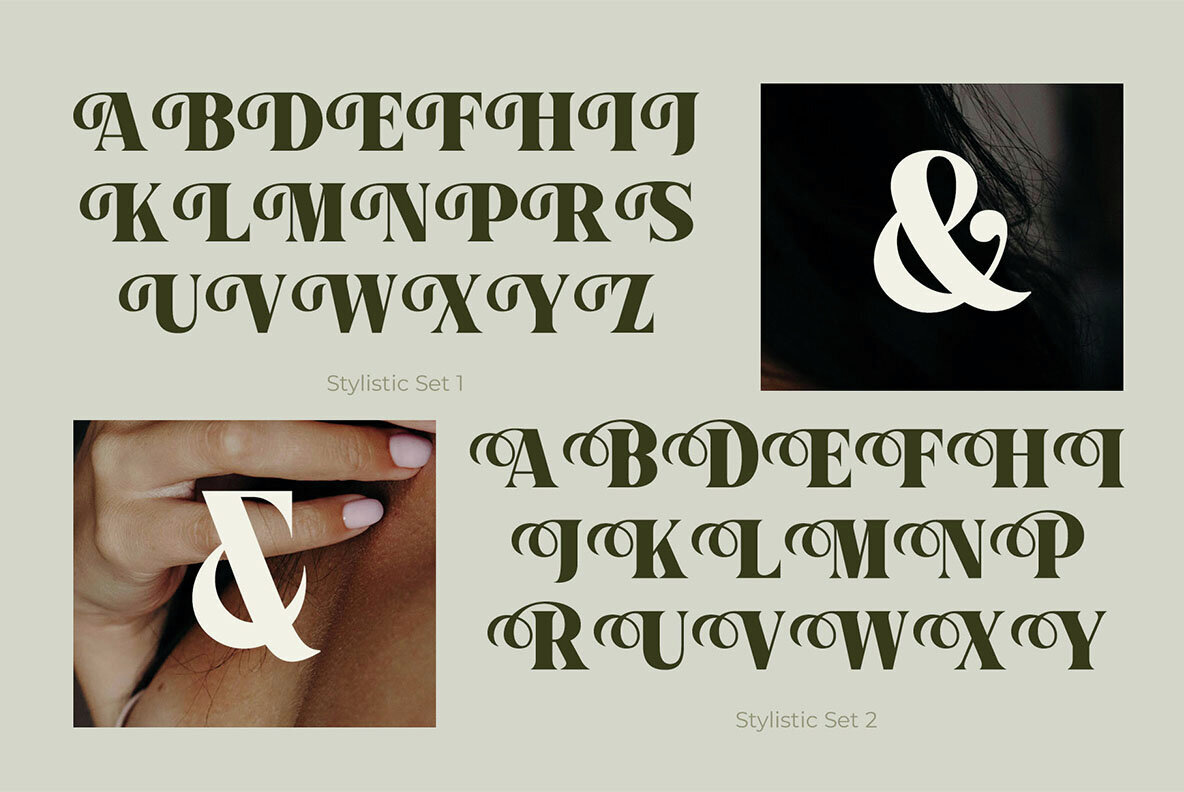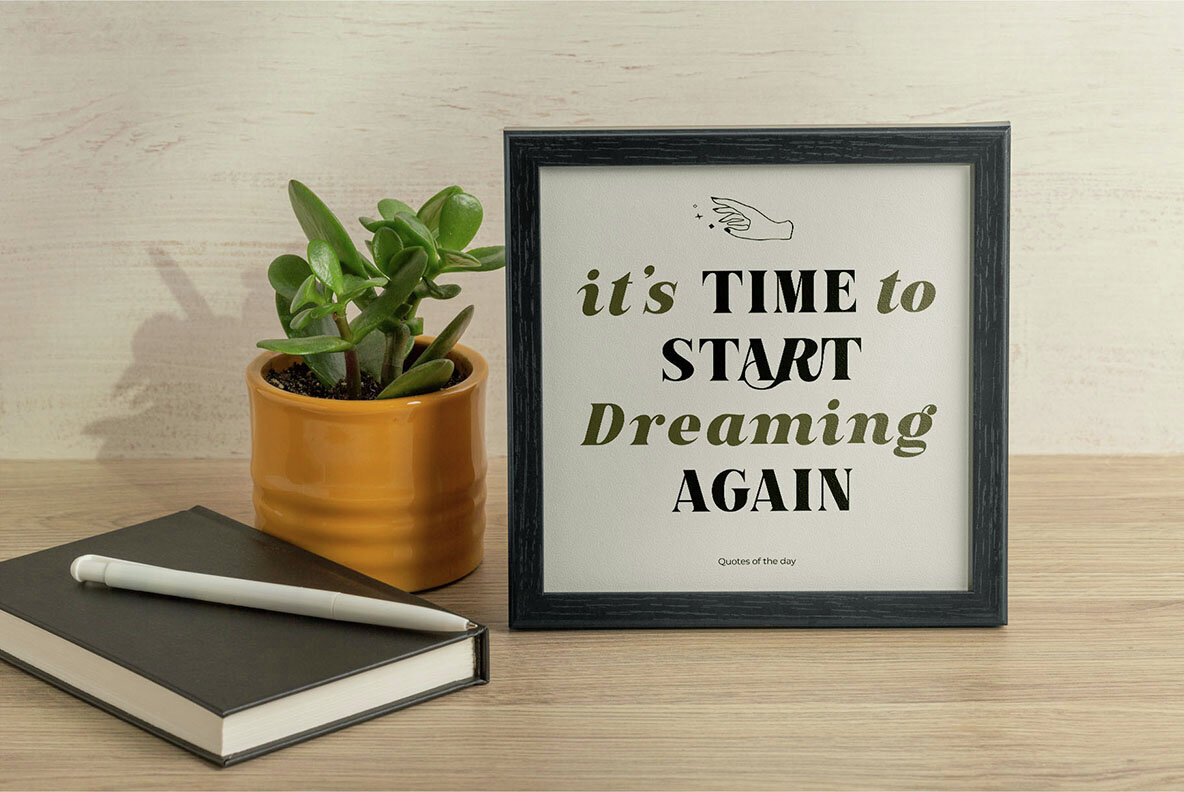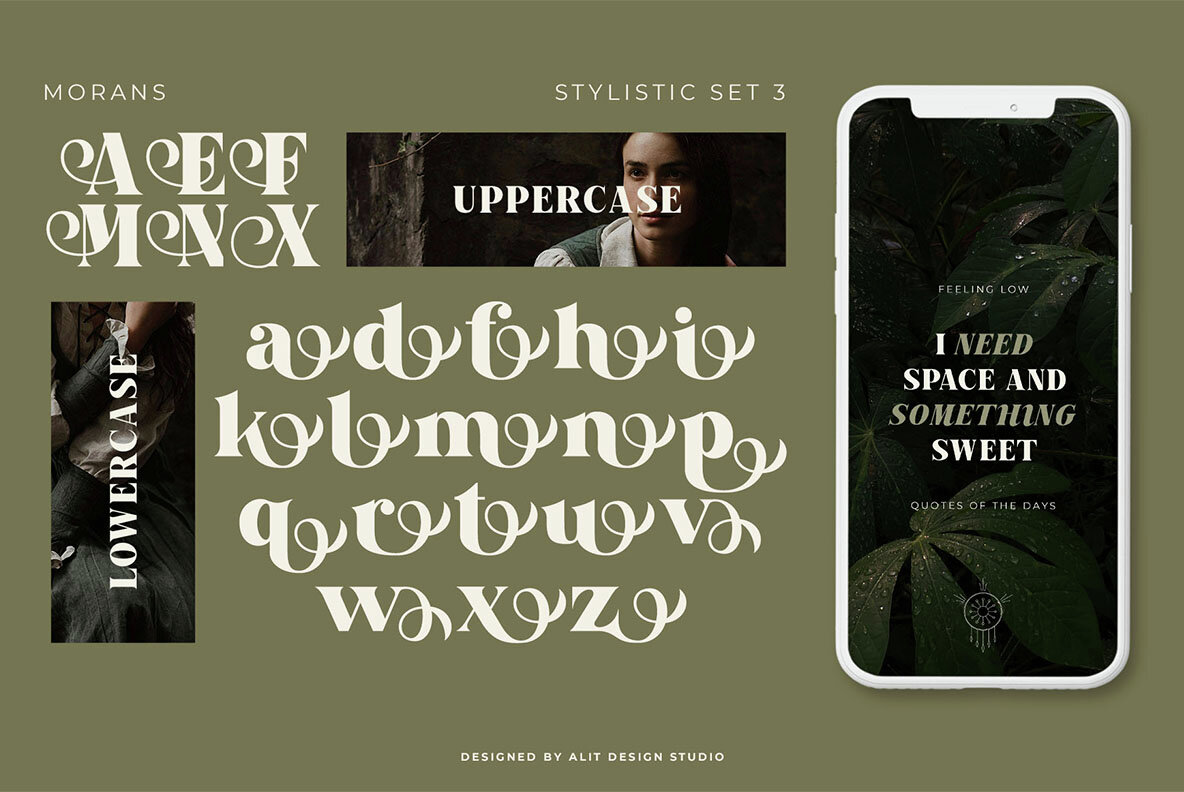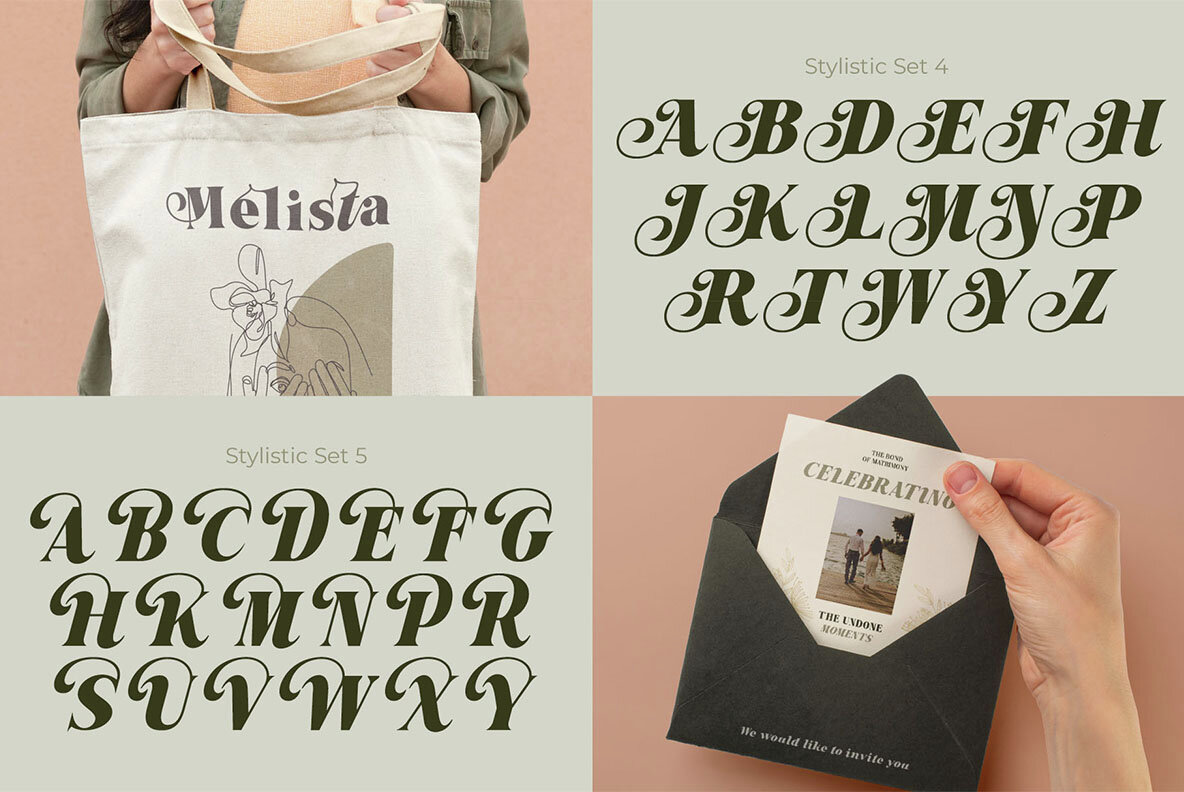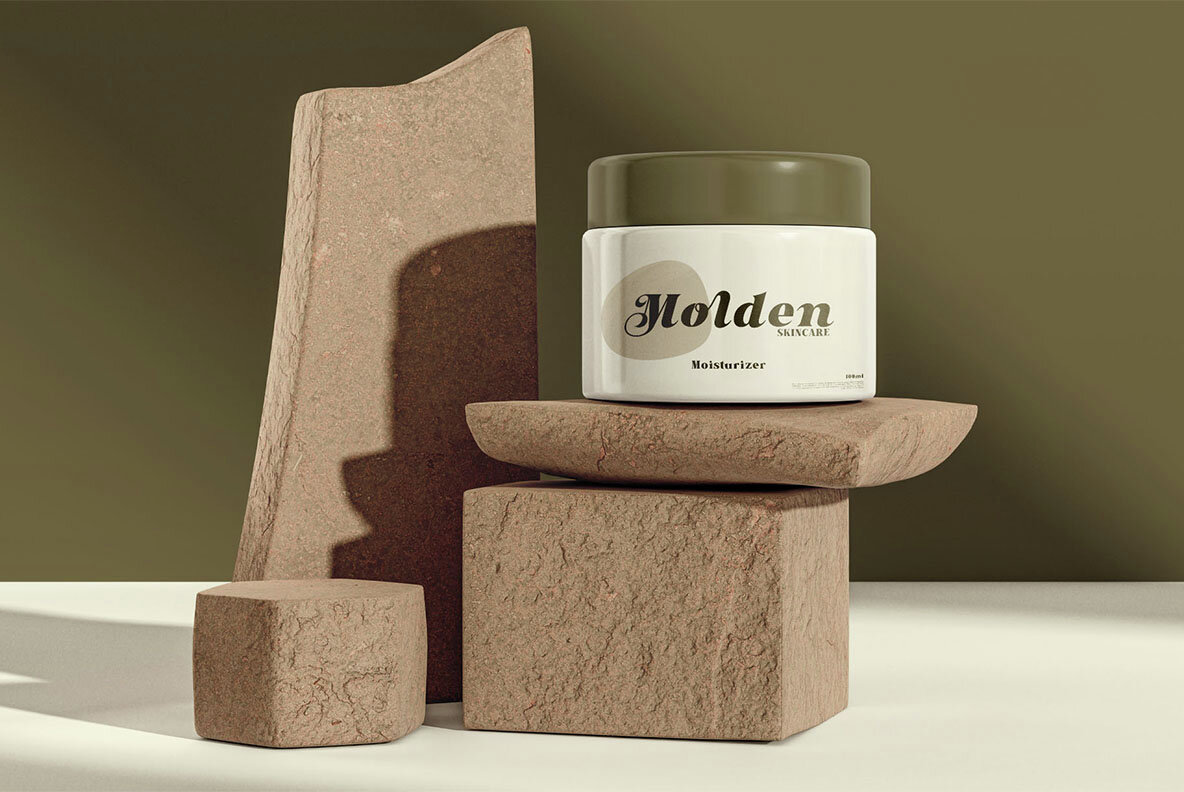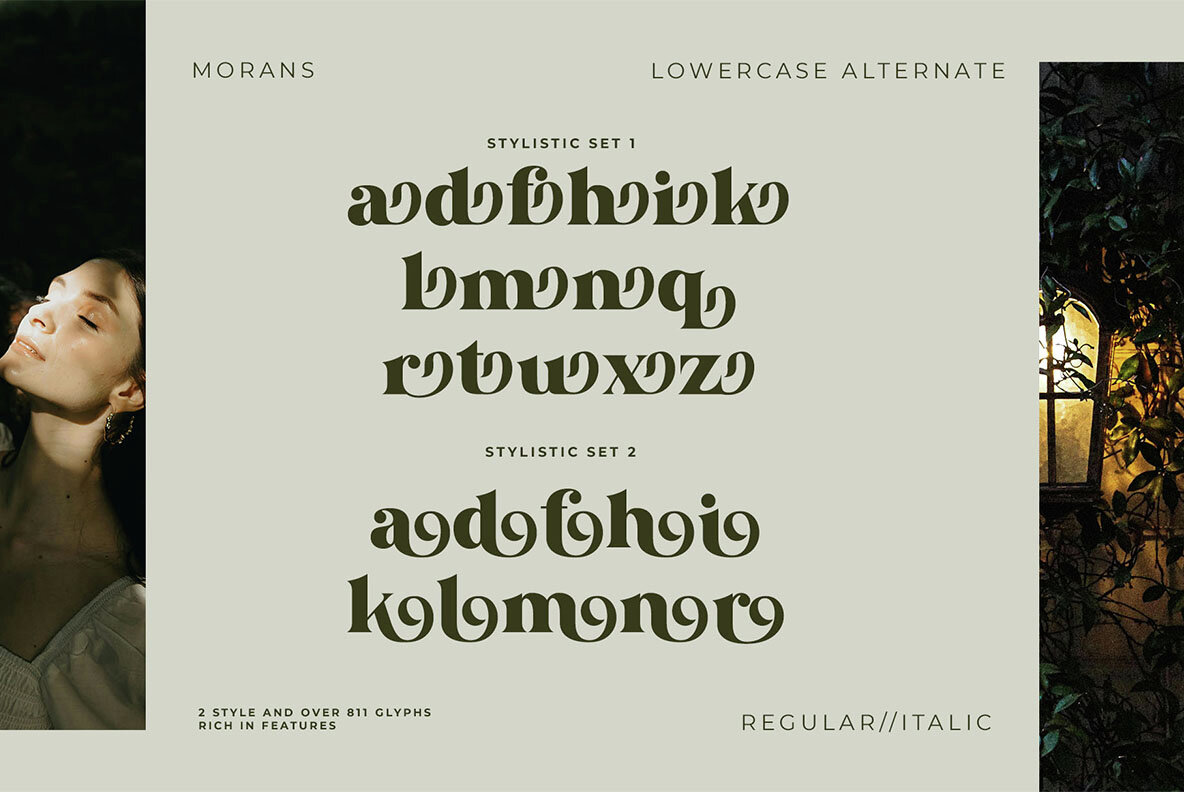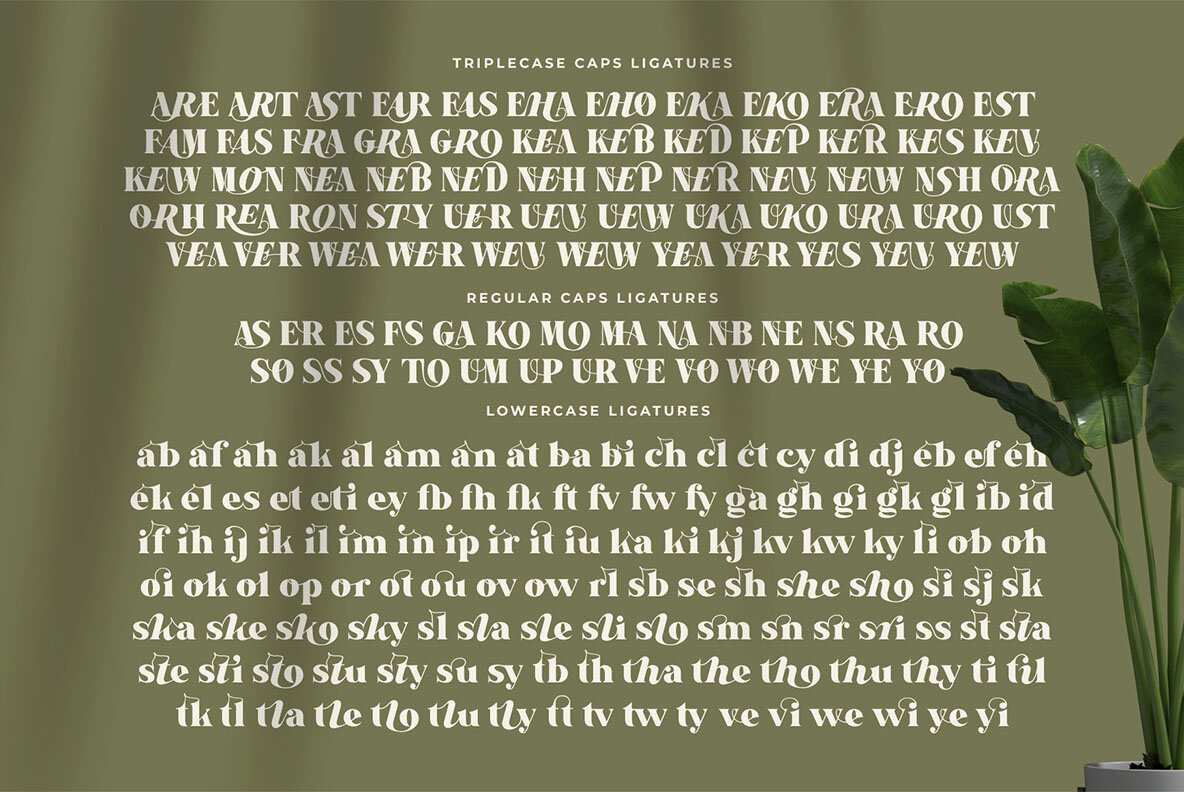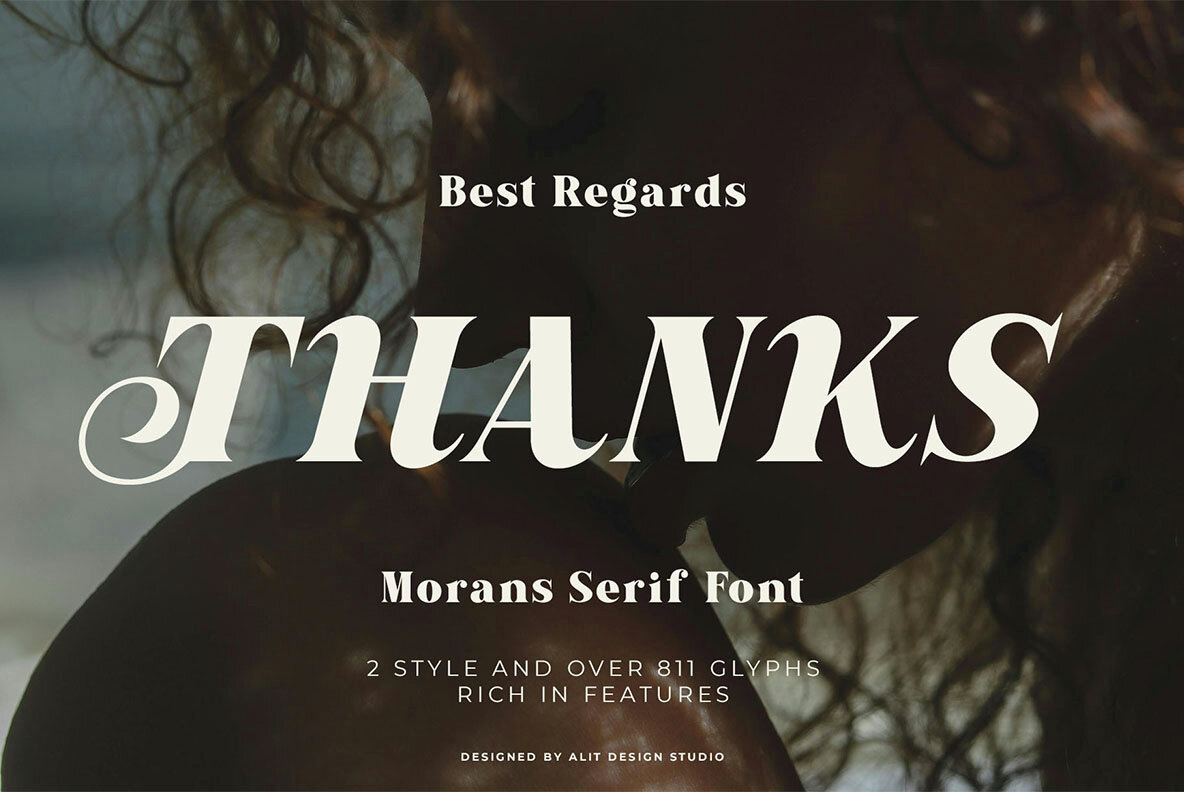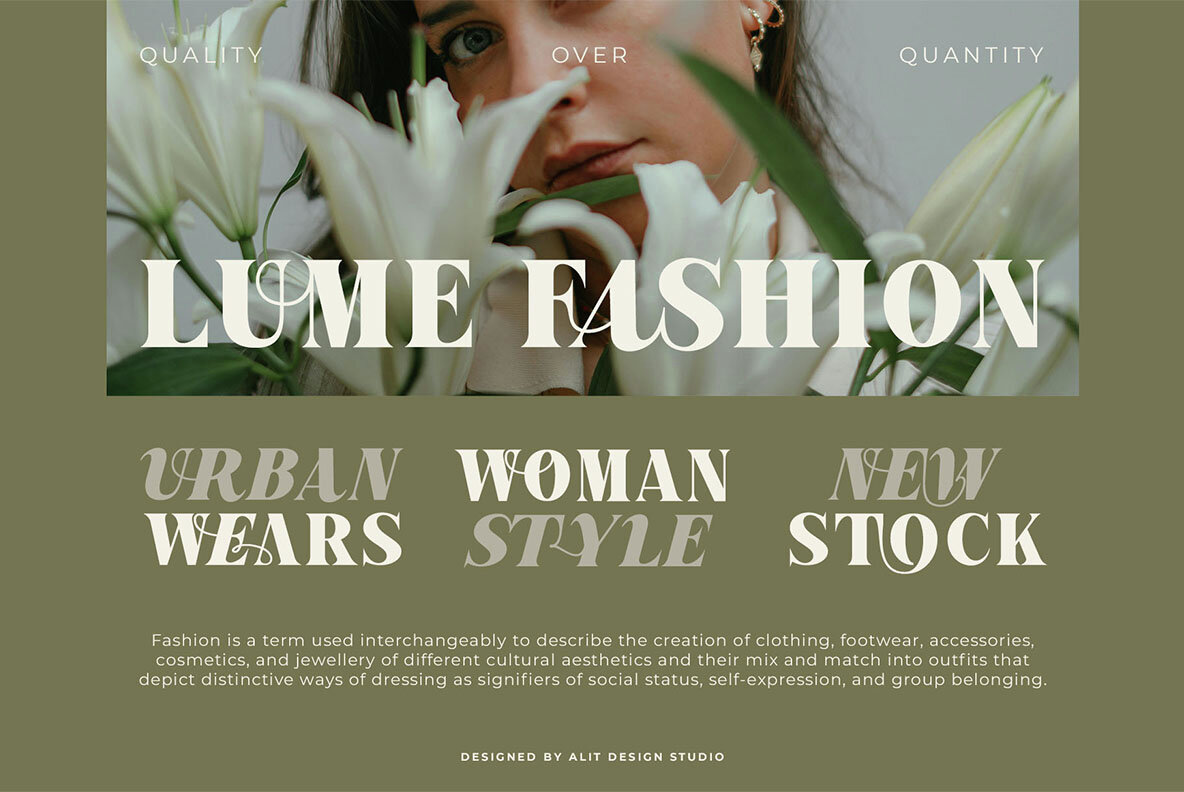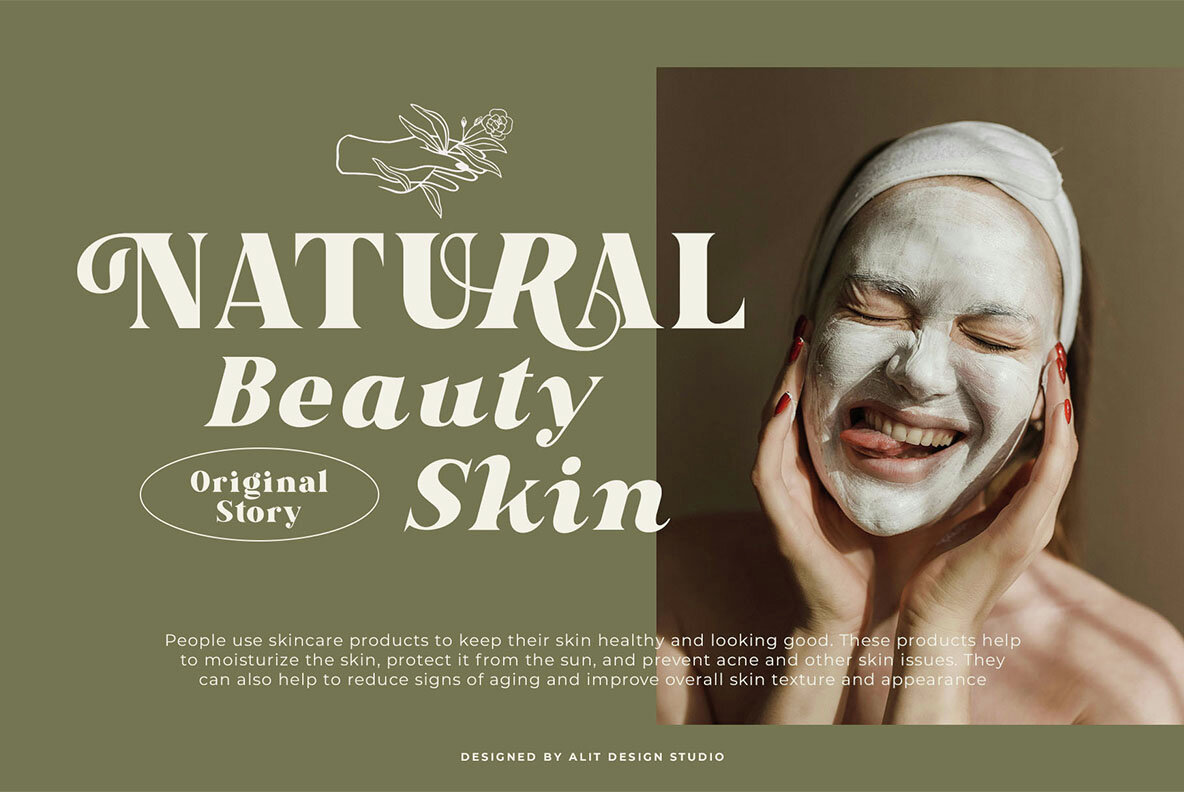
Morans Font
Morans is a sophisticated serif typeface designed by Alit Design Studio, exuding elegance and versatility. This premium font is perfect for designers seeking to make a bold statement with a refined touch. Featuring two distinct styles, Morans offers the flexibility needed to suit various design needs, whether you're aiming for a sleek, modern appearance or a vintage-inspired aesthetic.
With an extensive glyph set exceeding 811 characters, Morans is rich in typographic features. It offers unique alternates, ligatures, and swashes, enabling creative and distinctive lettering compositions. The typeface is characterized by sharp serifs, delicate curves, and a meticulous balance between thick and thin strokes, ensuring a luxurious and sophisticated design for each character.
Ideal for branding, Morans helps create memorable logos and brand identities with an elegant and professional edge. It serves editorial design perfectly, enhancing magazine covers, book titles, and fashion spreads with its artistic flair. The typeface is also suitable for packaging luxury items and adding a classic yet modern touch to web design elements like headers and hero sections. Morans balances vintage charm with modern minimalism, ensuring it remains relevant across diverse design trends. Its richly detailed glyphs provide a superior typographic experience, perfect for designers aiming for unique, creative outcomes.